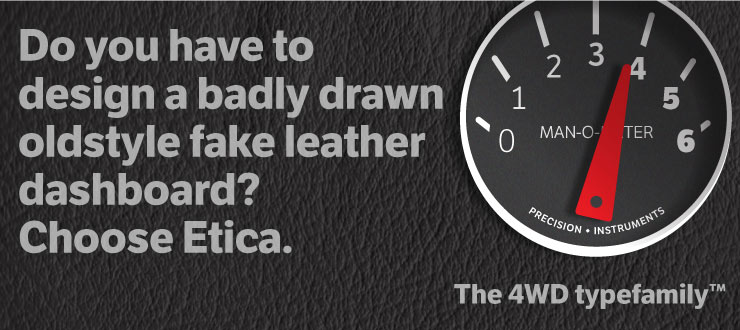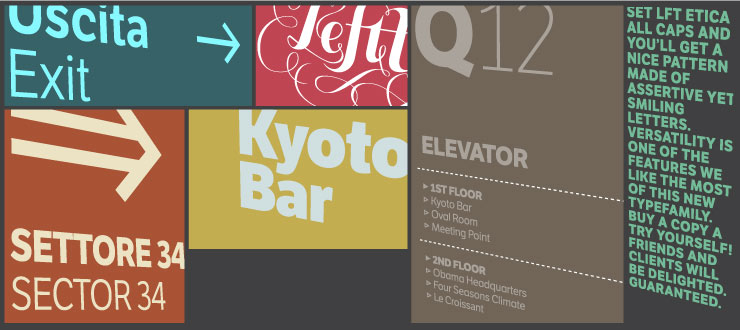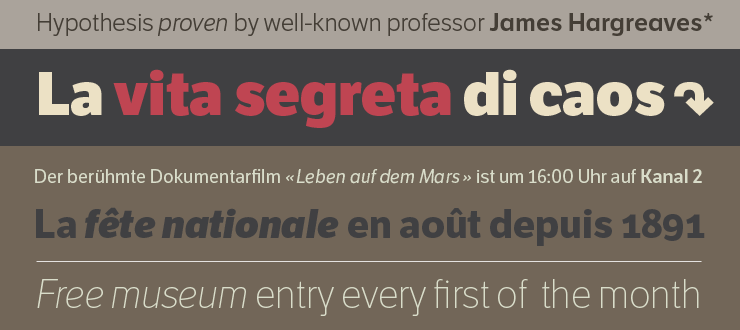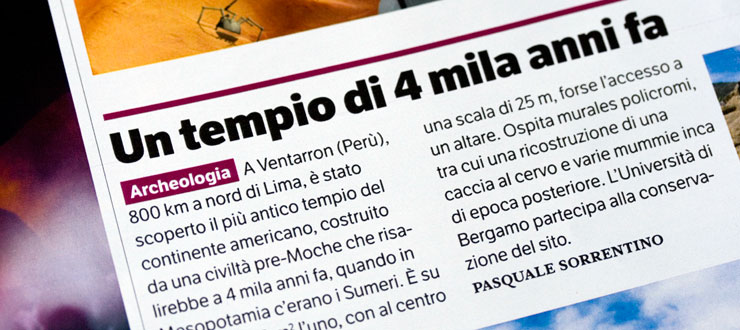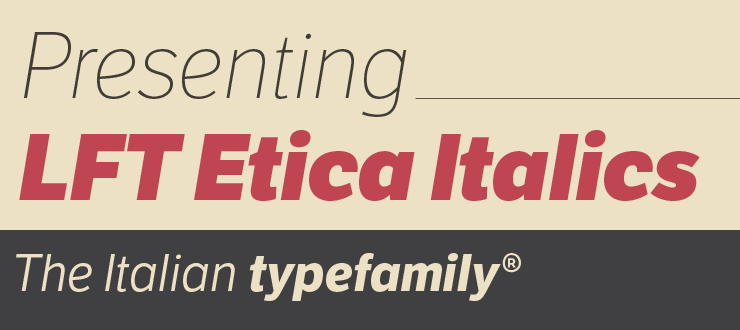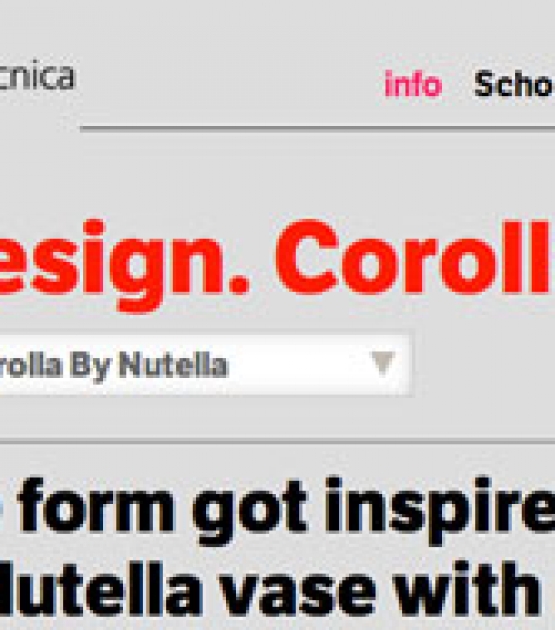
LFT Etica
Designed by Leftloft (Milan) . Released 2009.
LFT Etica fills the astute designer’s needs by obtaining the same versatility and colour as common grotesque faces, but with a much warmer feel. It successfully combines forcefulness and delicacy, wrapping both with sober charm. LFT Etica has become a de facto choice for web design and has proven versatile in applications where the ratio between information and space becomes an important challenge.
LFT Etica
A charming and sober sans with a balanced voice for any application.
LFT Etica, the moralist type family by Leftloft, was developed to fill the astute designer’s needs. The starting point was the common, cold grotesque sans typefaces — ubiquitous and often badly applied in their everyday visual environment. The challenge was to obtain the same force, versatility, and colour, but with a much warmer feel.
LFT Etica resides aesthetically somewhere between a grotesque and a humanist sans serif, resulting from a design of soft strokes with open counters and terminals. LFT Etica successfully combines forcefulness and delicacy, wrapping both with sober charm.
Milan-based Leftloft studio teamed up with Octavio Pardo to develop 24 additional styles for the very successful LFT Etica type family. This expansion is a direct response to type users’ requests who found in LFT Etica a de facto choice for web design.
The new styles come in two series — 12 condensed widths and 12 compressed — and have proven versatile in applications where the ratio between information and space becomes an important challenge. Each letter was scrutinised to ensure durability throughout time and adaptability within circumstance, so LFT Etica meets the challenge of balance head-on.
With its wide current range of 40 styles and many OpenType features (four sets of numerals, fractions, arrows, and dingbats, as well as stylistic alternates), LFT Etica is a versatile typeface suitable for corporate or casual use, for printed publications as well as web design.
The complete LFT Etica family, along with our entire catalogue, has been optimised for today’s varied screen uses.